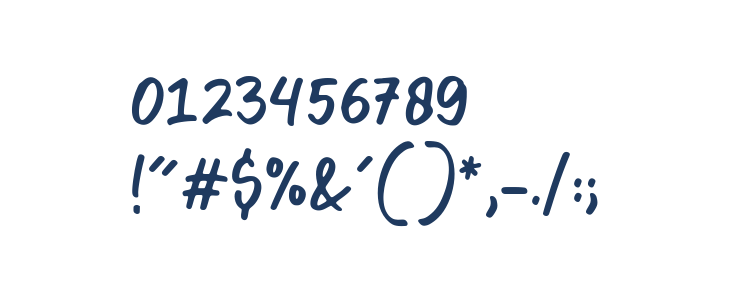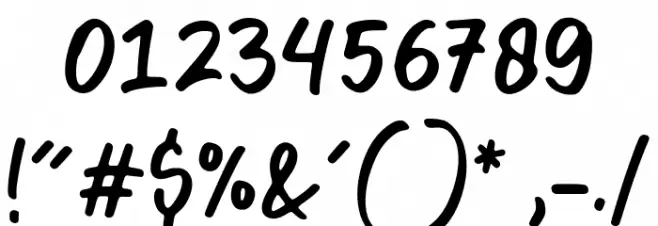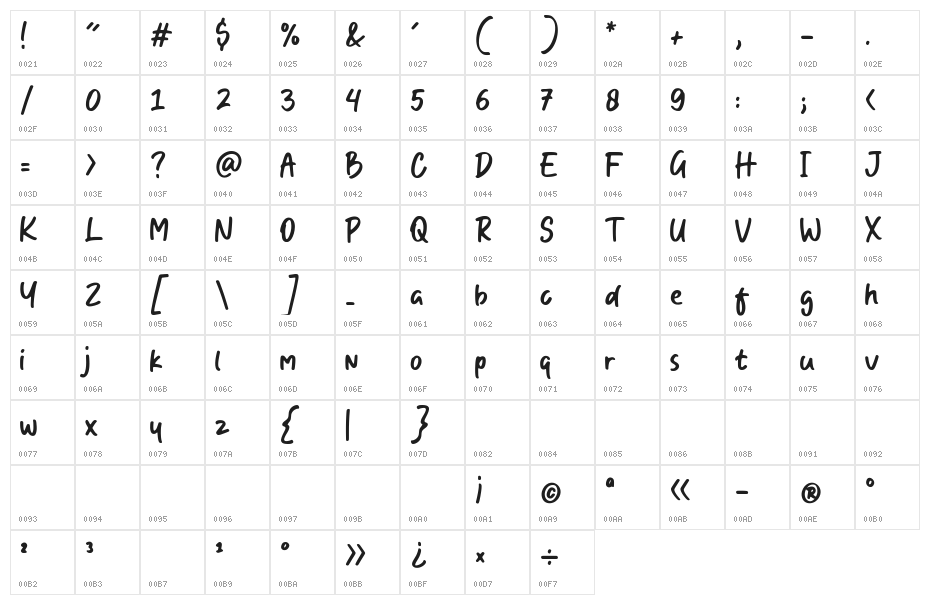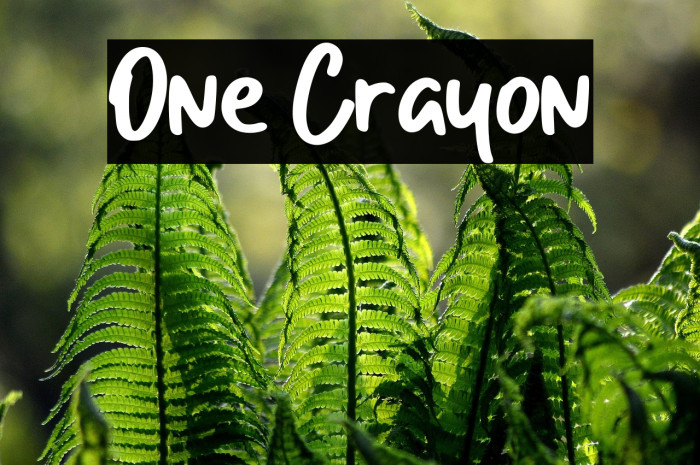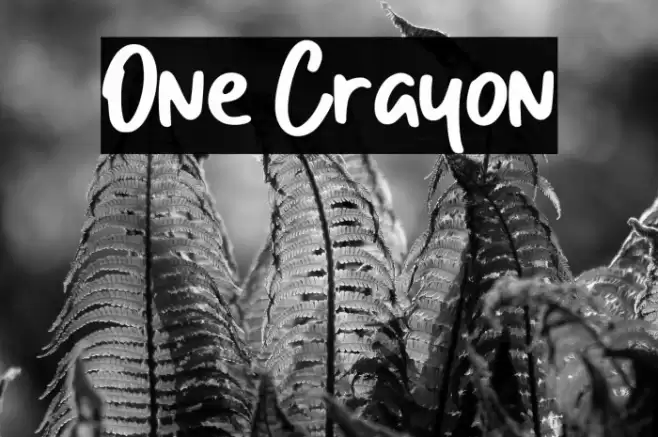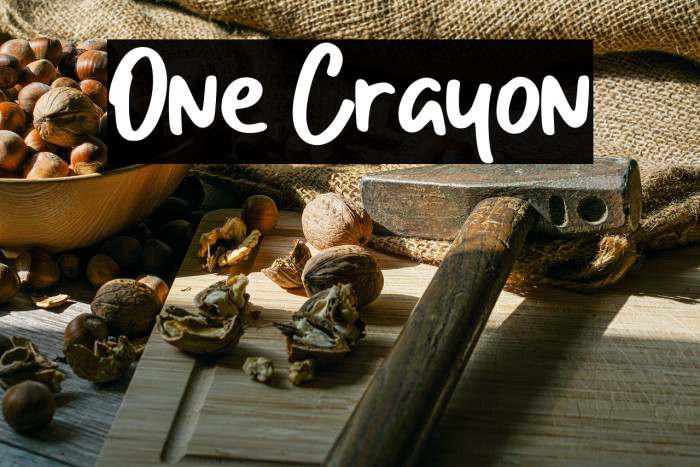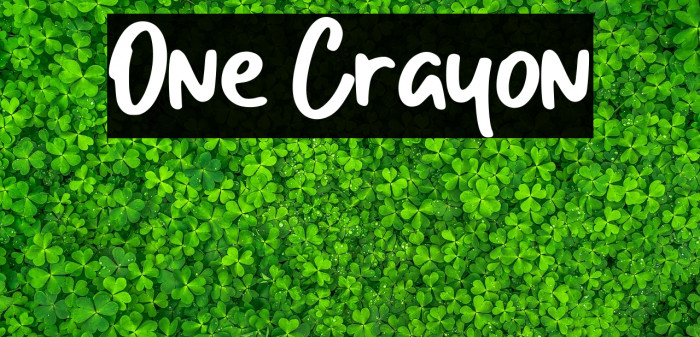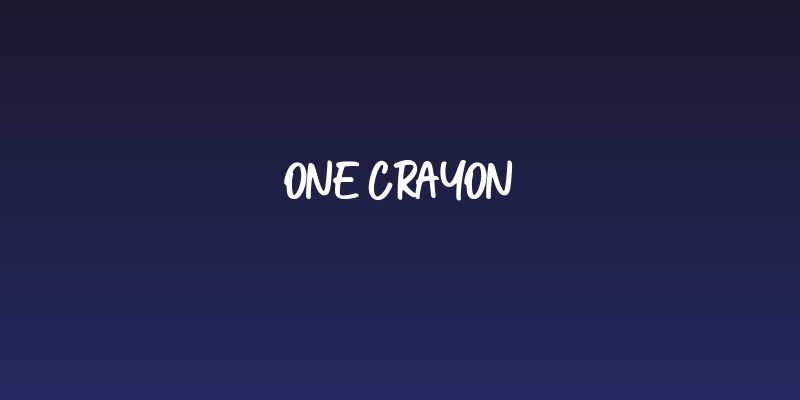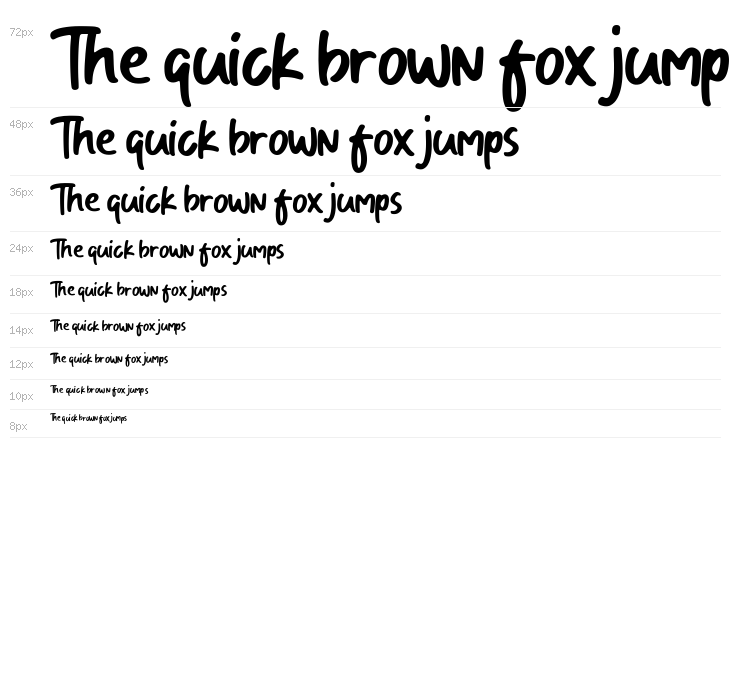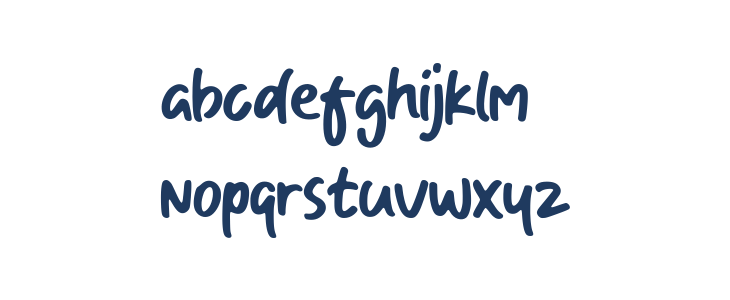
One Crayon Font
One Crayon Description
This playful and informal font features a handwritten style that mimics the look of writing with a crayon or marker. The letters are bold and rounded, with a slightly uneven baseline that adds to its casual charm. The uppercase and lowercase letters maintain a consistent style, with the lowercase letters being slightly more compact. The numerals are clear and easy to read, matching the overall playful aesthetic. Special characters are included, maintaining the same hand-drawn feel. This font is perfect for projects that require a fun and approachable look, such as children's books, playful branding, or casual invitations.
| Overall Style | Playful, Casual |
| Proposed Projects | Ideal for children's books, playful branding, casual invitations, and creative posters. |